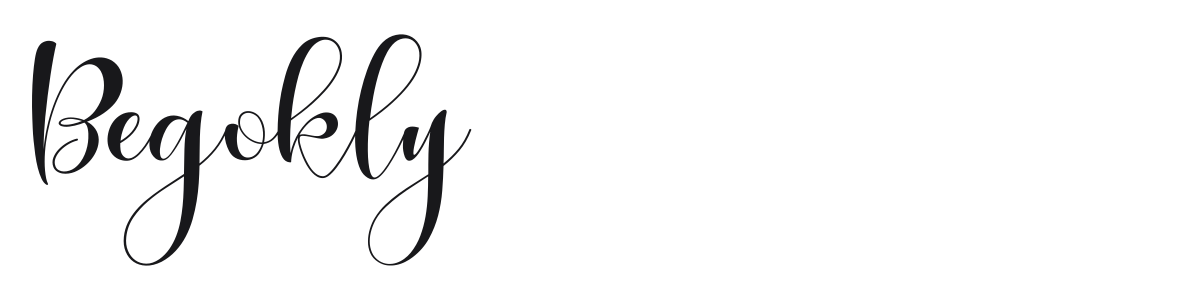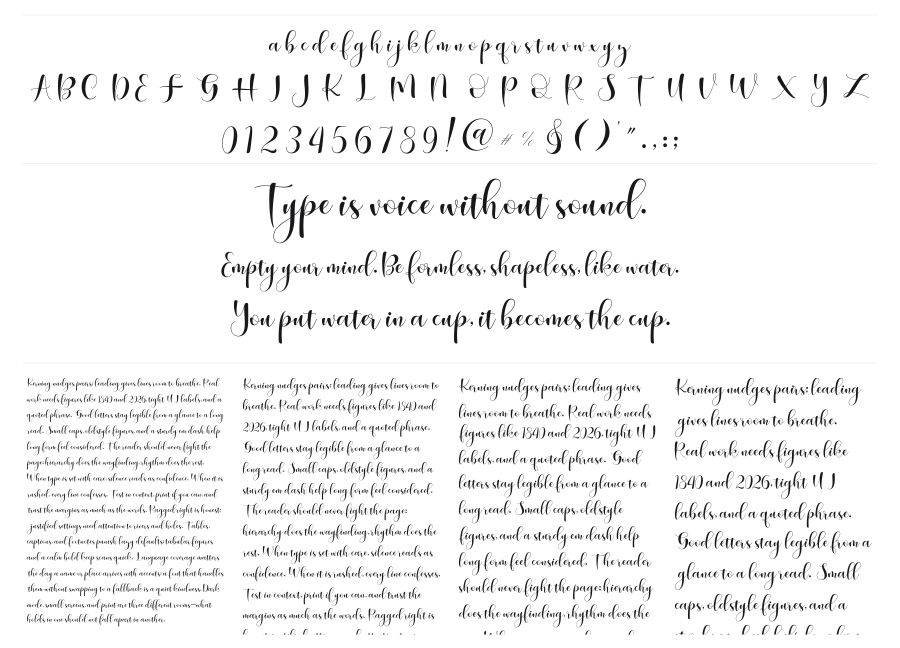
Begokly
by Moly Mol
Begokly is a modern calligraphic script with lush looping ascenders and high stroke contrast between thick stems and hairline connectors. The bouncy baseline and freely flowing letterforms give it a hand-lettered spontaneity that still reads as polished. It thrives on wedding invitations, brand logos, and anywhere a romantic, personal touch is needed.